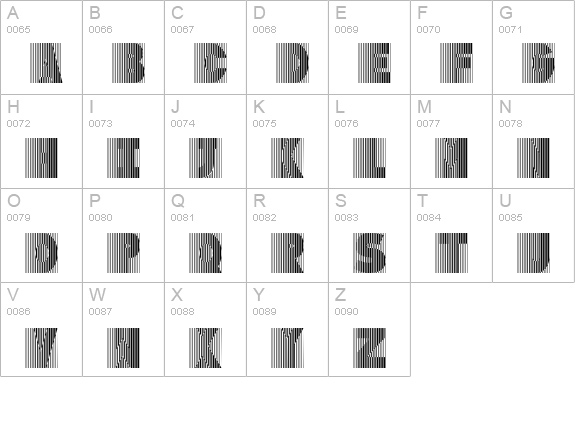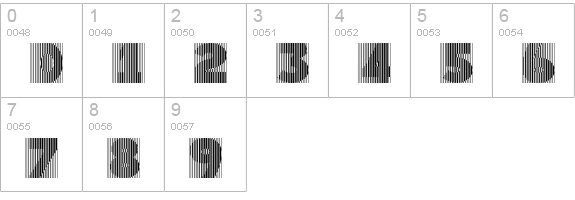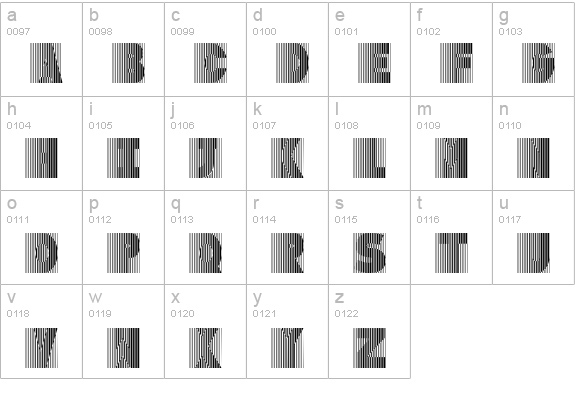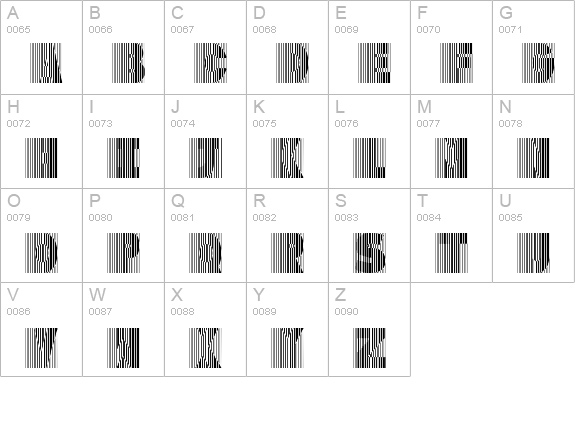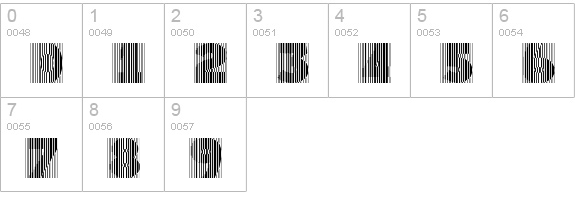
Good Vibes Font Details
Introducing Good Vibes font, a delightful and playful typeface that exudes positivity and warmth. This charming font is perfect for adding a touch of cheer to your designs, whether it's for greeting cards, posters, social media graphics, or branding projects. With its whimsical and flowing style, Good Vibes font brings a sense of joy and optimism to any text it adorns. The best part? Good Vibes font is completely free to download at FontsMarket.com. This means you can spread good vibes far and wide without breaking the bank. So go ahead, download Good Vibes font today and let its cheerful energy elevate your designs to new heights!